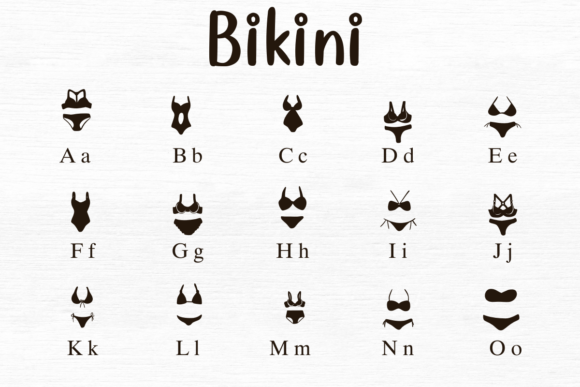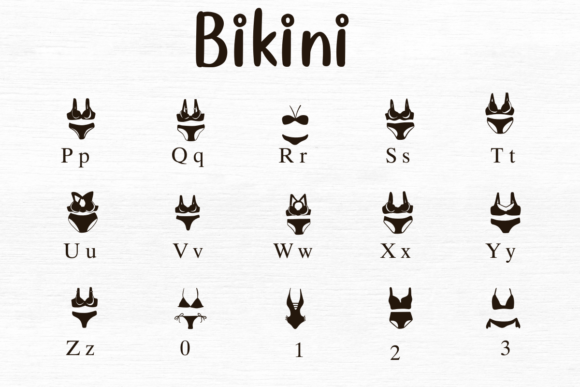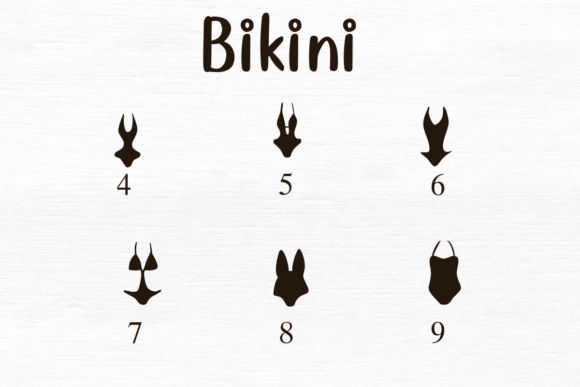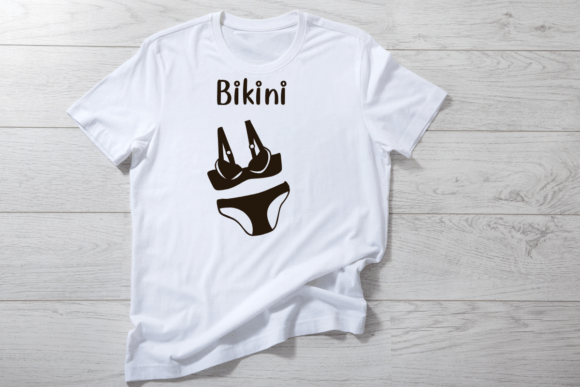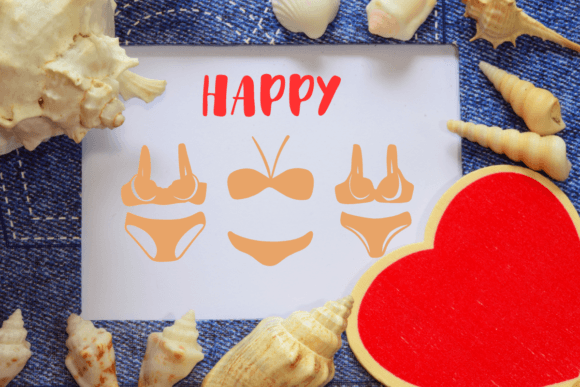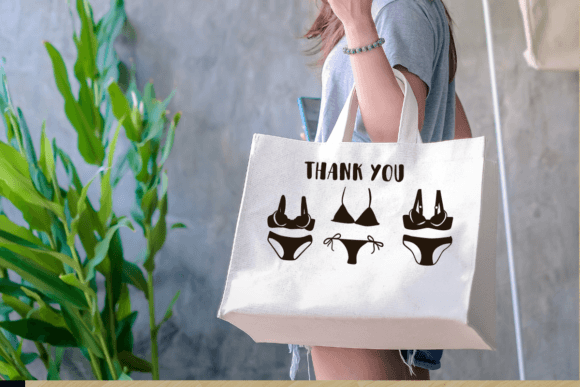
Bikini Font: The Perfect Addition to Your Summer-Themed Projects
Are you looking for a fun and playful font to add a touch of summer to your designs? Look no further than the Bikini Font! This dingbat font features various bikini designs, making it perfect for summer-themed projects, beach party invitations, and more.
What is the Bikini Font?
The Bikini Font is a unique and creative font that showcases different bikini shapes and styles. Each character in this font represents a distinct bikini design, ranging from classic and simple to bold and colorful. This font is sure to add a playful and eye-catching element to any design.
Key Features of the Bikini Font
- Fun and playful designs: The Bikini Font features a wide range of bikini designs, from simple and elegant to bold and colorful.
- Dingbat font: This font uses dingbat characters, making it easy to use and customize.
- Perfect for summer-themed projects: The Bikini Font is ideal for designers and crafters working on summer-themed projects, such as beach party invitations, summer sale promotions, and more.
Uses for the Bikini Font
The Bikini Font is versatile and can be used in a variety of design projects, including:
- Beach party invitations: Create fun and playful invitations for beach parties, pool parties, or summer gatherings.
- Summer sale promotions: Add a touch of summer to your sale promotions and advertisements.
- Travel brochures: Use the Bikini Font to create eye-catching travel brochures and advertisements for beach destinations.
- Craft projects: This font is perfect for crafters working on summer-themed projects, such as handmade cards, scrapbooking, and more.
Tips for Using the Bikini Font
Here are some tips for using the Bikini Font in your designs:
- Mix and match characters: Combine different bikini designs to create a unique and playful look.
- Experiment with colors: Use bright and bold colors to make your designs stand out.
- Keep it simple: Use the font as a accent element to add a touch of summer to your designs.
The Bikini Font is a fun and playful dingbat font that is perfect for summer-themed projects and beach party invitations. With its unique and creative designs, this font is sure to add a touch of summer to your designs. Whether you’re a designer or crafter, the Bikini Font is a great addition to your font collection.
- What type of font is the Bikini Font?: The Bikini Font is a dingbat font featuring various bikini designs.